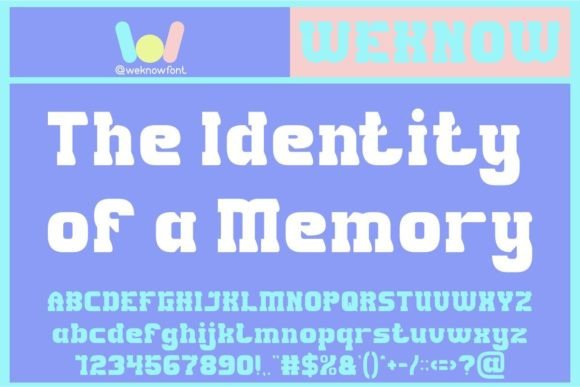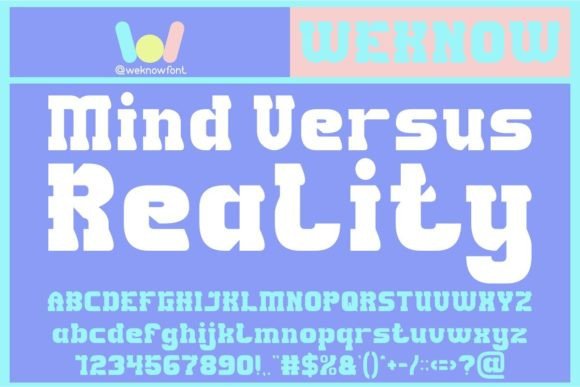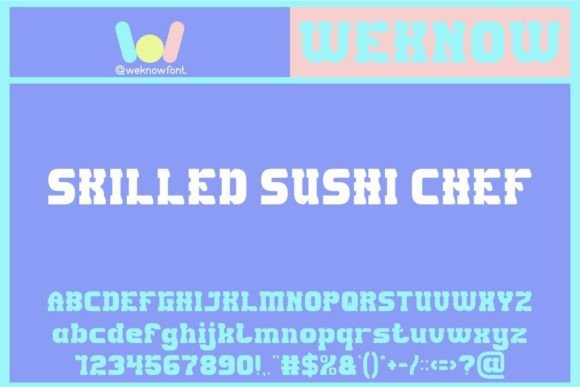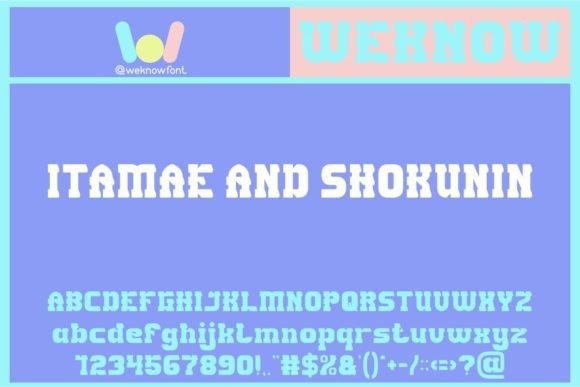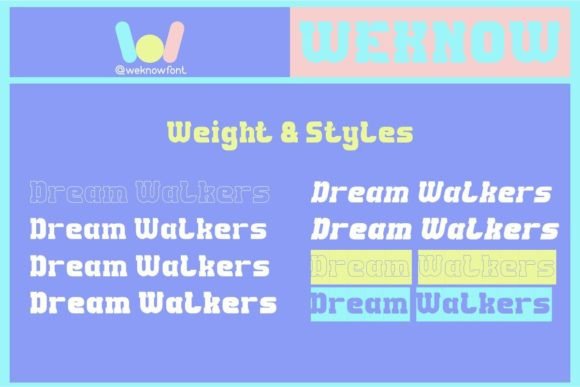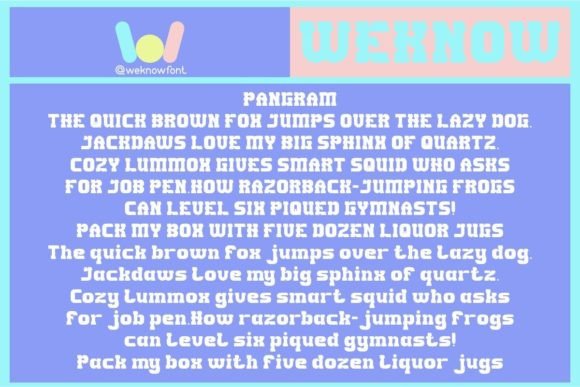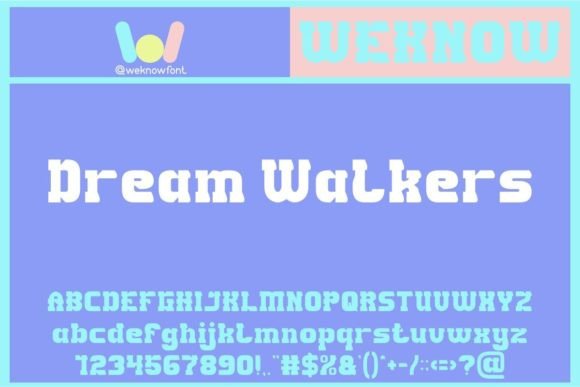
Unleash Your Creativity with Dream Walkers Font: A Unique Slab Serif Marvel
In the realm of typography, a font can make or break the visual identity of a brand. It’s the first thing that catches the eye and sets the tone for the entire experience. For designers and crafters looking to elevate their creative edge, we’re excited to introduce “Dream Walkers,” an intricately crafted slab serif font that beautifully marries vintage nostalgia with modern clarity.
What is Dream Walkers Font?
Dream Walkers is a thoughtfully designed slab serif font that brings a perfect blend of retro charm and contemporary flair. Its sharp and groovy touches effortlessly infuse a unique character that can define your brand and make it stand out across all platforms. Whether you’re in the fashion realm, music industry, gaming world, or any other creative field, this font is poised to add a dash of whimsy to your creations.
Key Features of Dream Walkers Font
- Vintage Nostalgia Meets Modern Clarity: Dream Walkers beautifully balances classic elements with modern sensibilities, making it versatile for a wide range of projects.
- Unique Character: The font’s distinctive style ensures that your logo, headline, or corporate branding stands out and is memorable.
- Versatility: Ideal for various applications, including posters, magazines, books, comics, culinary ventures, and digital platforms like YouTube, Instagram, and websites.
- Attention-Grabbing: With its sharp and groovy touches, Dream Walkers promises to make your design projects attention-grabbing and leave a lasting impression.
Applications of Dream Walkers Font
The versatility of Dream Walkers font makes it suitable for a myriad of applications. Here are a few ideas to get you started:
- Print Media: Use Dream Walkers for posters, magazines, books, and comics to add a touch of personality and whimsy.
- Digital Platforms: Elevate your YouTube videos, Instagram posts, and website content with this charismatic font.
- Culinary Ventures: Add a dash of charm to your restaurant’s menu, packaging, or advertising materials.
- Fashion and Music: Make a statement with your brand’s logo, headlines, or promotional materials in the fashion and music industries.
Why Choose Dream Walkers Font?
In a sea of fonts, Dream Walkers stands out for its unique blend of vintage and modern elements. Here are a few reasons why designers and crafters should consider adding Dream Walkers to their toolkit:
- Unique Brand Identity: Dream Walkers helps you create a memorable brand identity that resonates with your audience.
- Creative Freedom: The font’s versatility gives you the creative freedom to experiment with different designs and applications.
- Attention to Detail: With Dream Walkers, you can add a level of sophistication and whimsy to your projects that sets them apart.